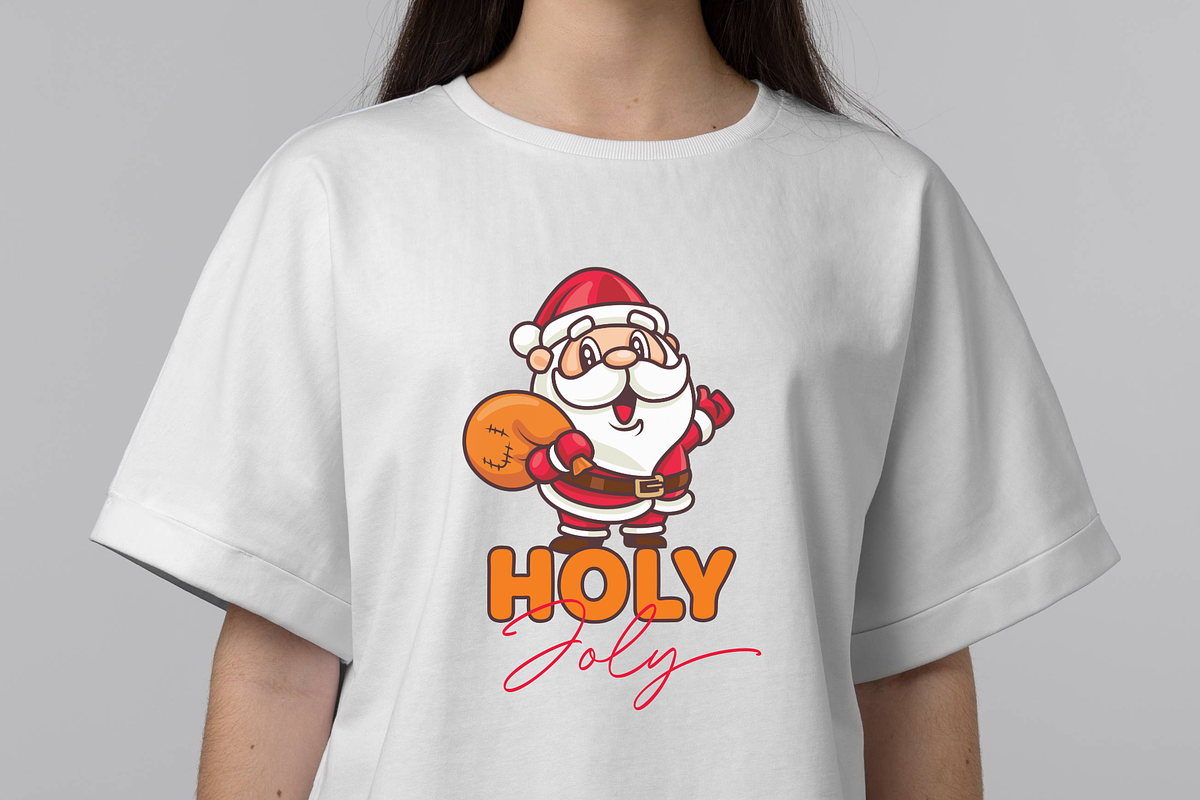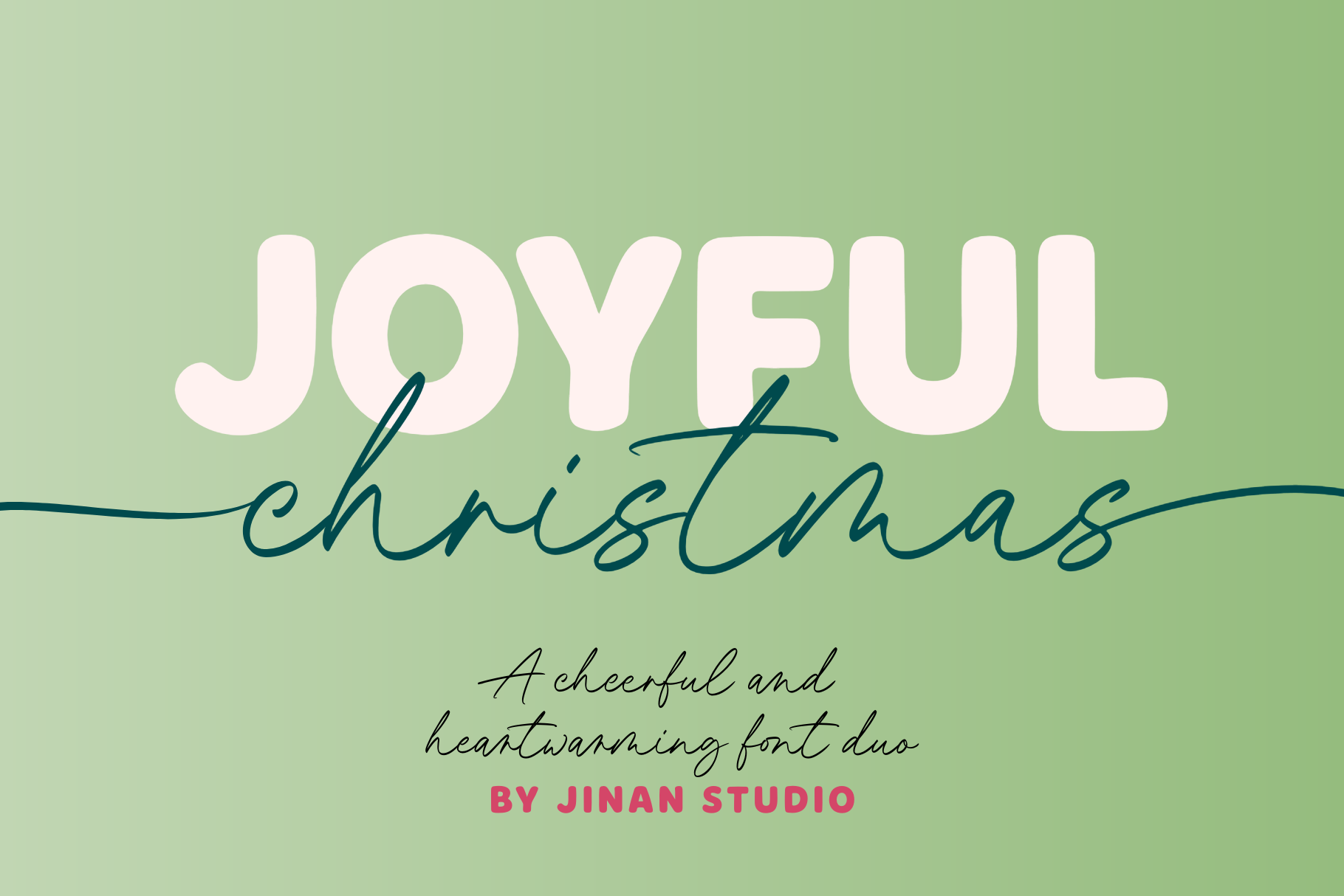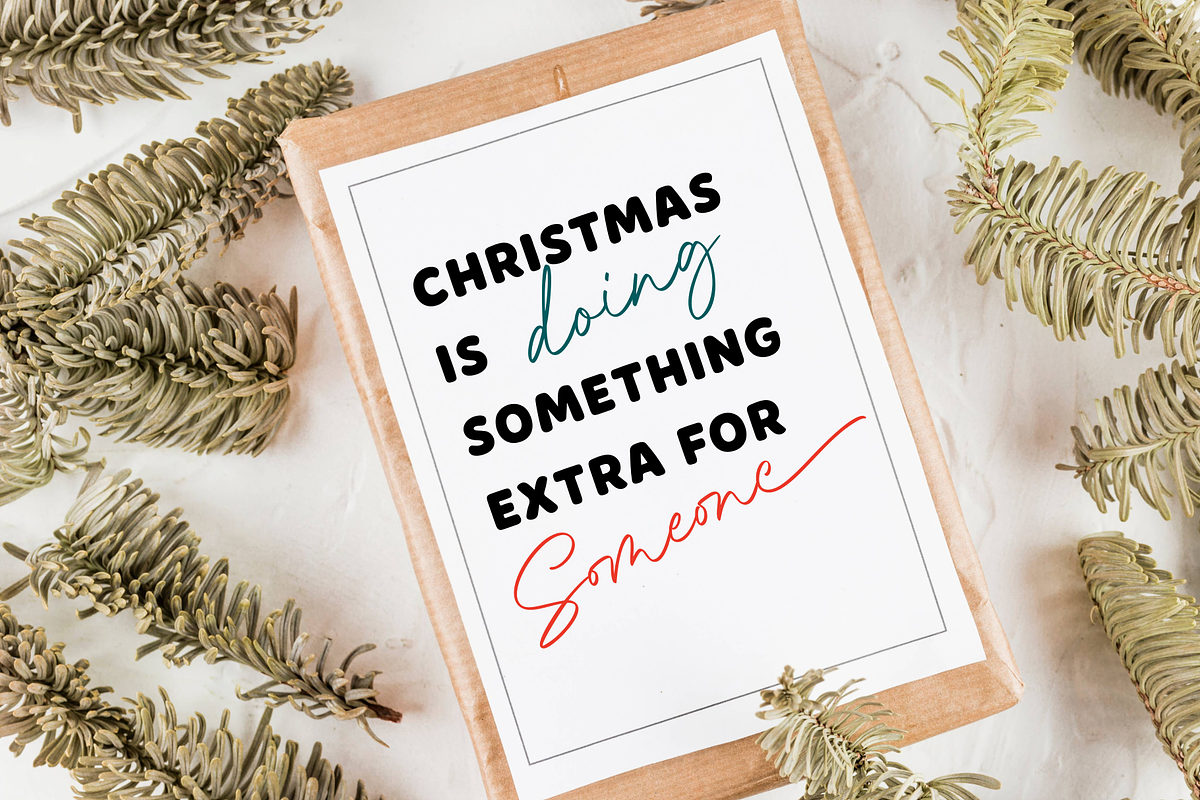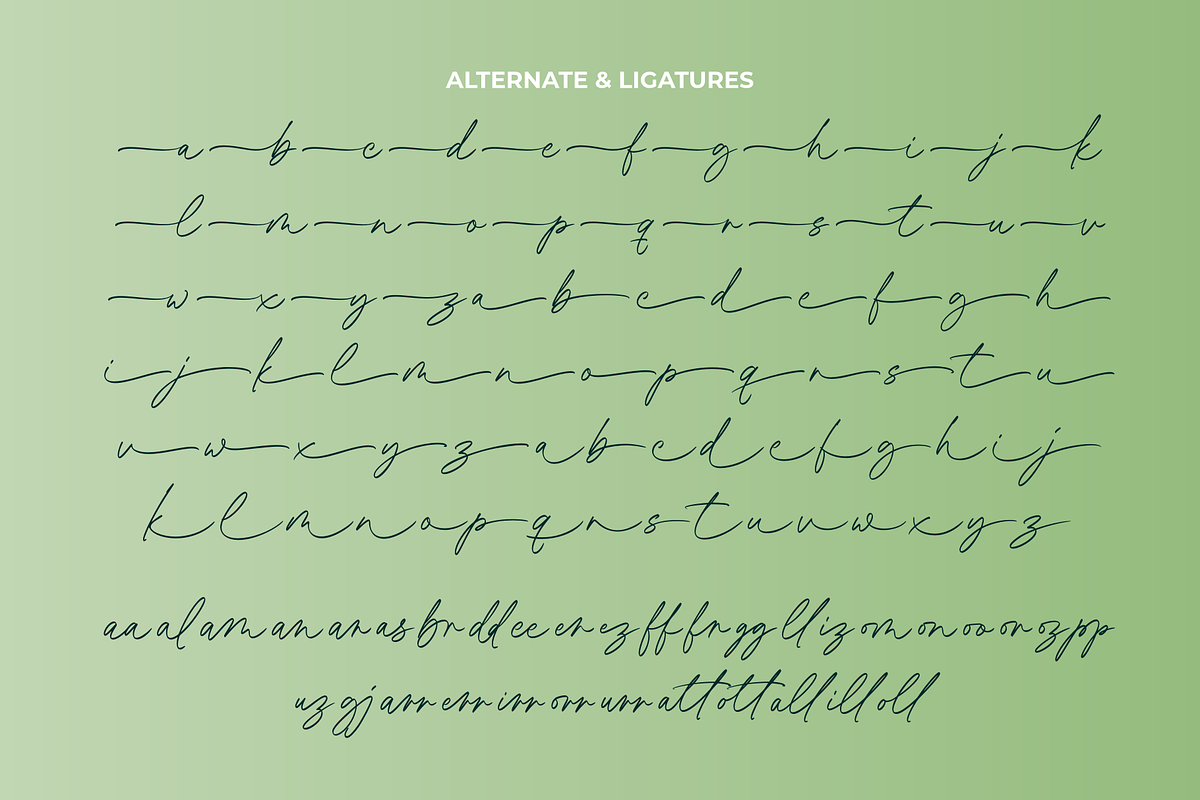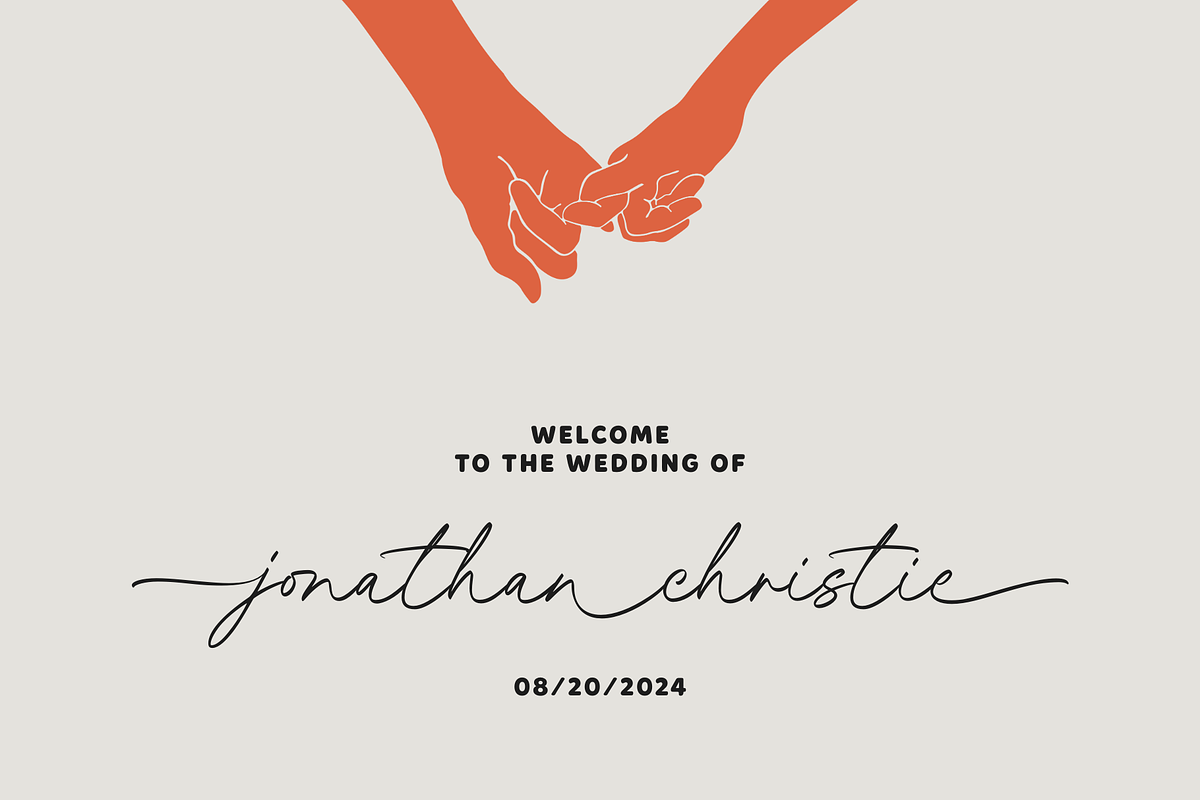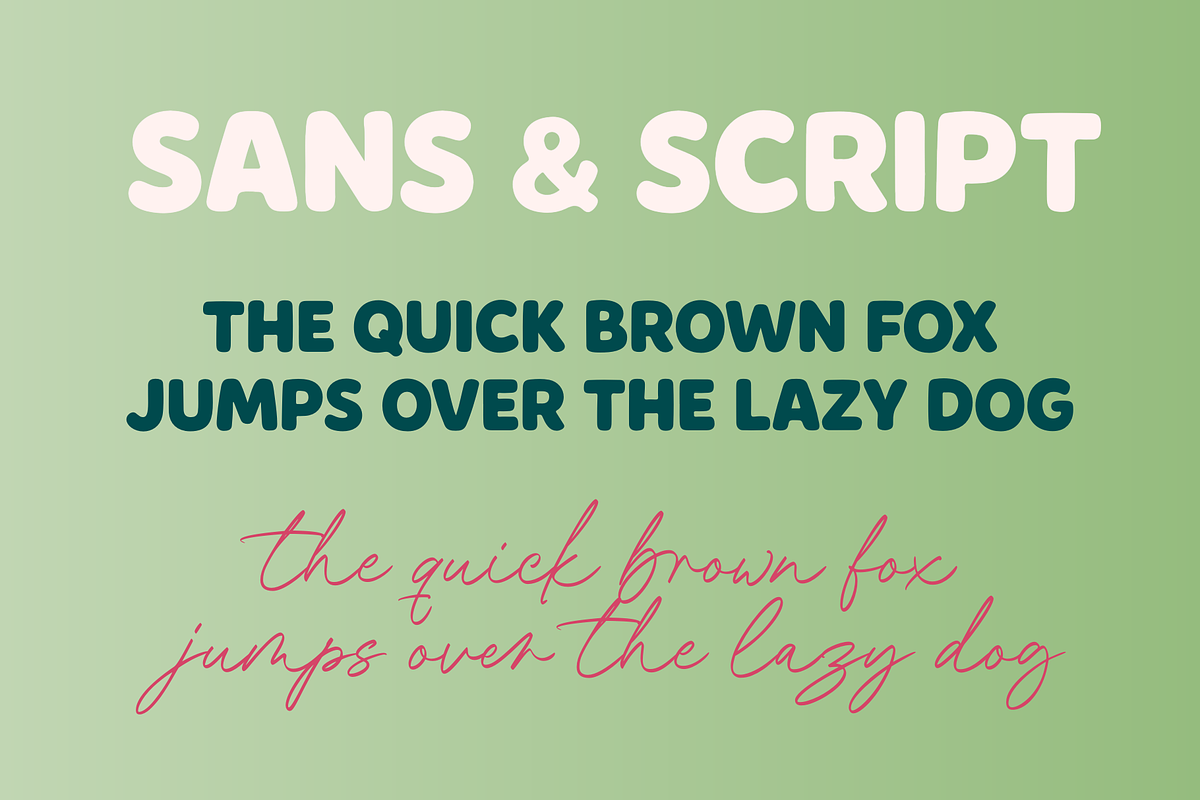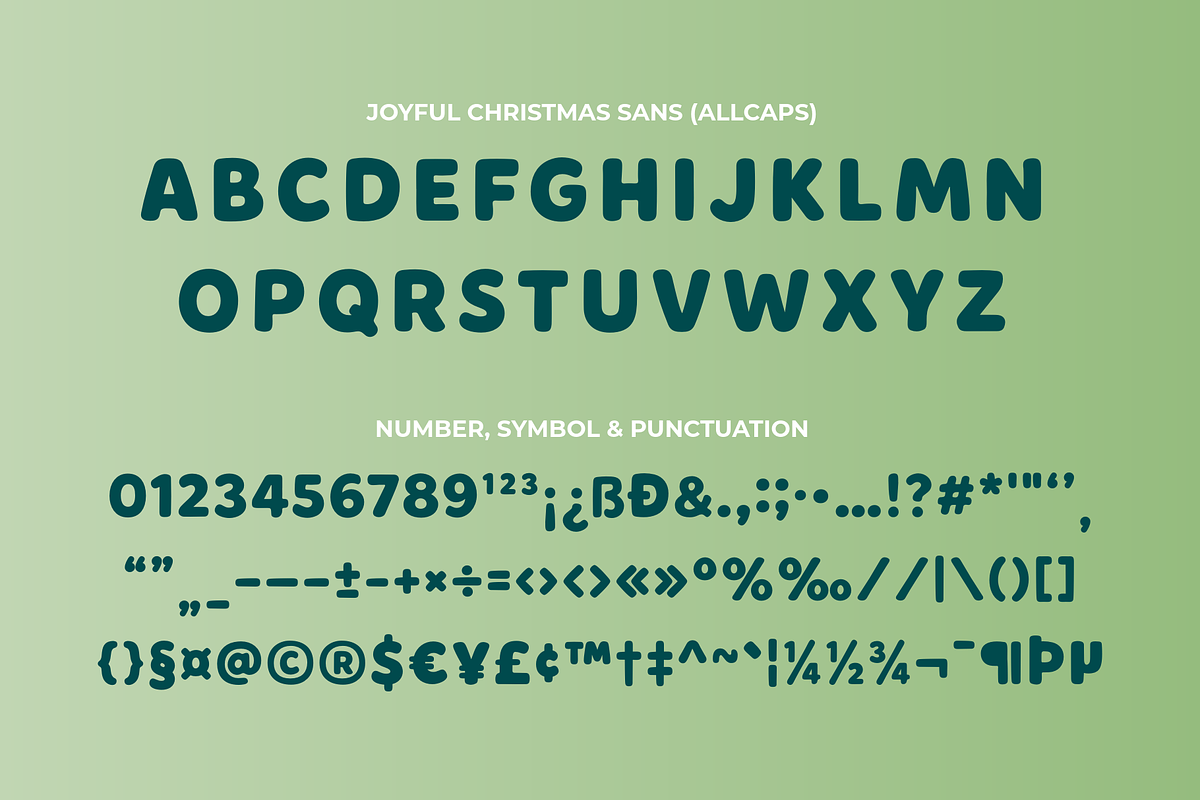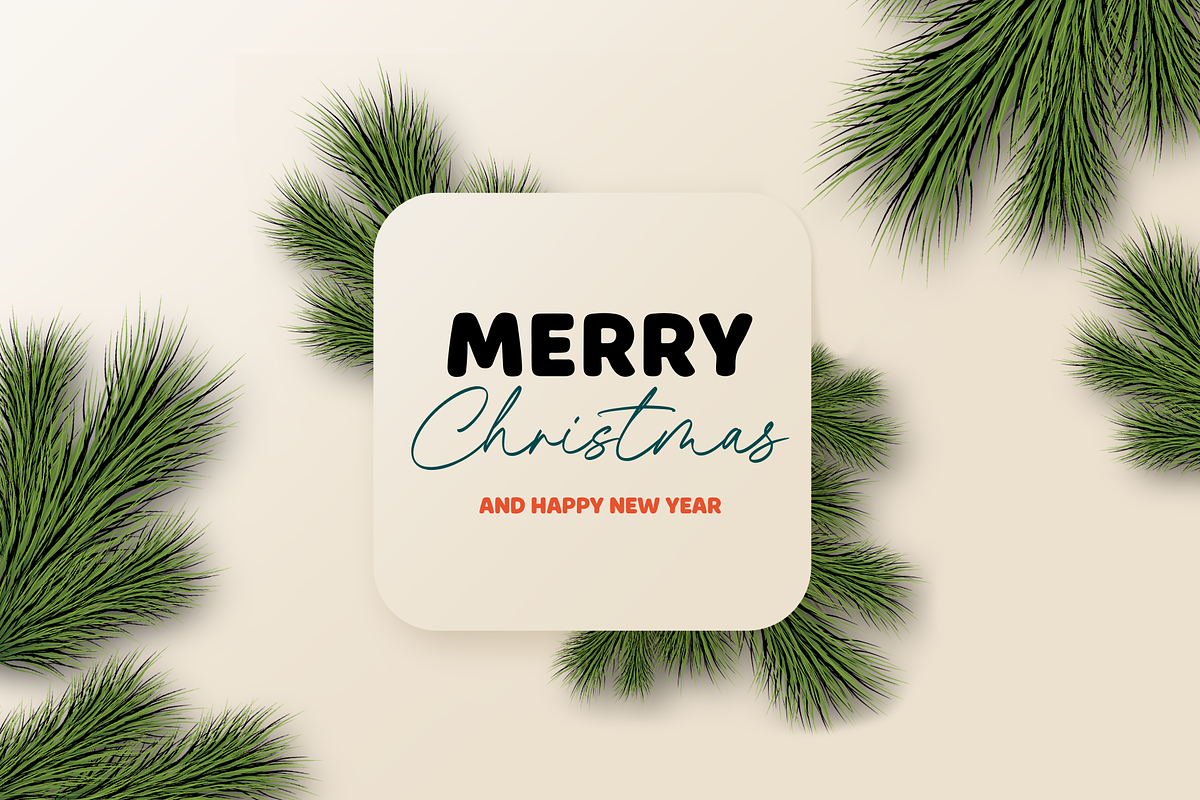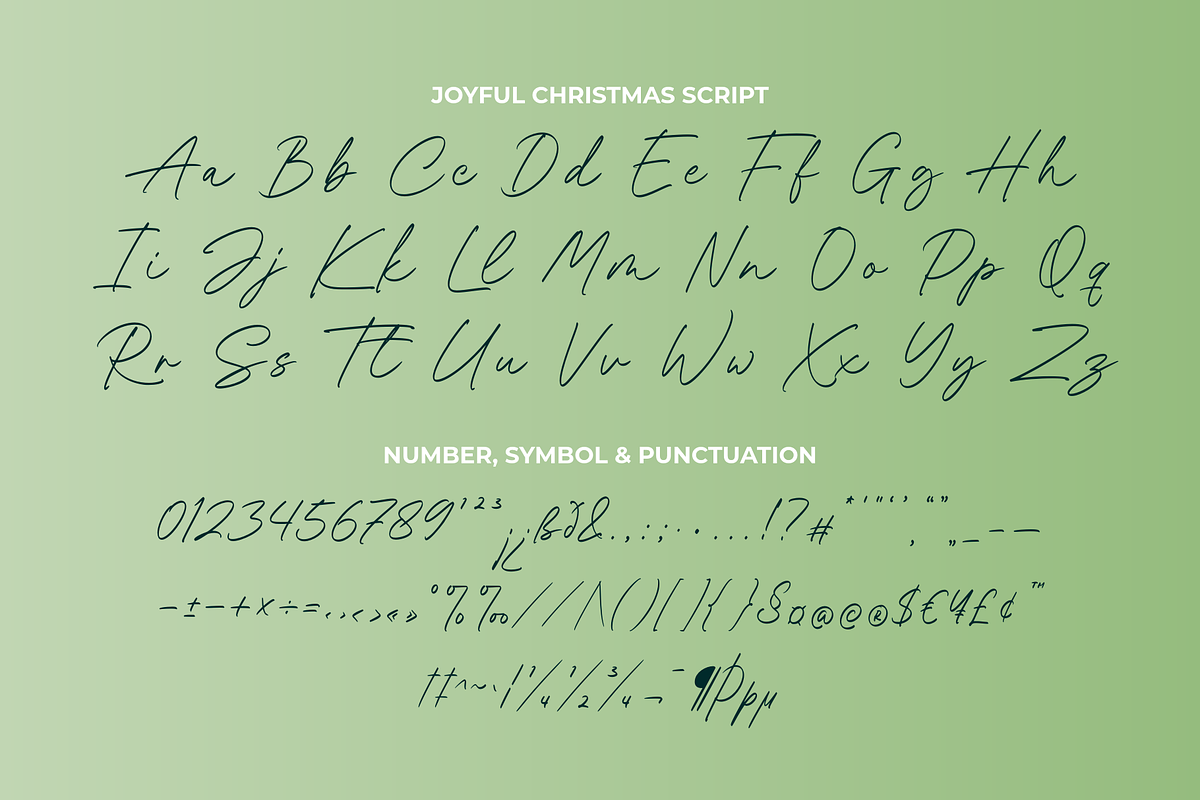
Joyful Christmas - A Font Duo
Joyful Christmas is a cheerful and heartwarming font duo featuring a bold rounded sans serif and a smooth handwritten script. This combination creates a playful yet clean look that’s perfect for holiday designs.
Ideal for Christmas projects, greeting cards, branding, packaging, posters, social media, and festive quotes. Easy to use and versatile, Joyful Christmas adds a cozy, joyful feel to any seasonal design.
- A set of uppercase and lowercase glyphs (allcaps sans version)
- Number, symbol, and punctuation